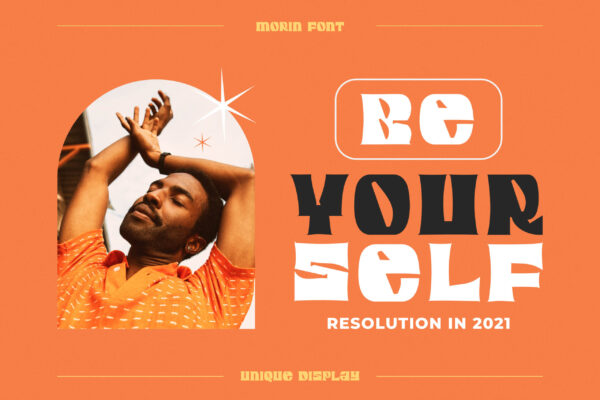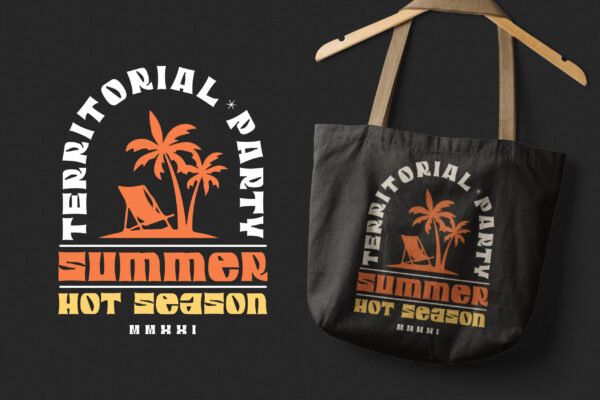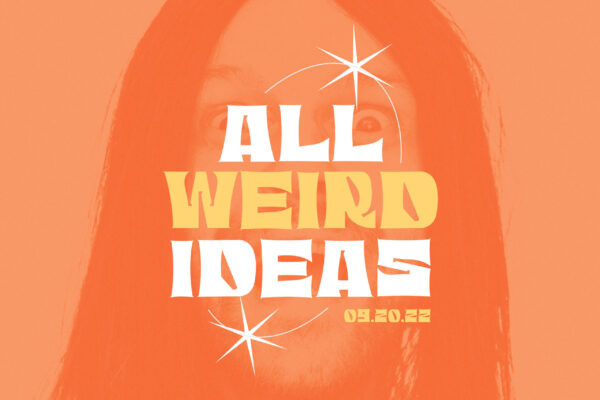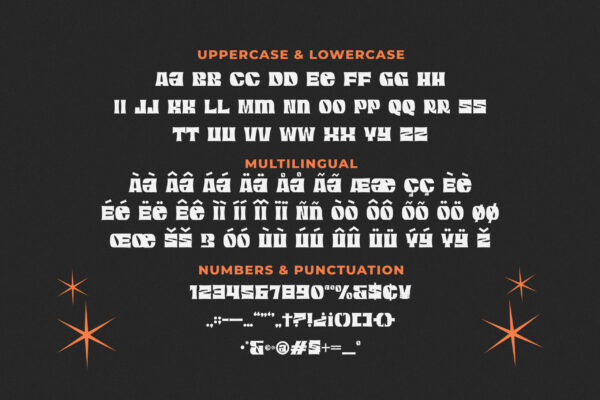
Morin is a bold and charismatic display font with a playful twist. Its sharp, exaggerated serifs and curvy letterforms evoke a vintage flair, while still feeling modern and full of attitude. The font’s quirky charm makes it ideal for headlines, branding, posters, and retro-inspired designs that demand attention.
With its full set of uppercase, lowercase, numbers, punctuation, and multilingual support, Morin is versatile and expressive. Whether you’re working on a summer event poster, creative campaign, or standout apparel design, Morin brings uniqueness and flair to your typography.
Morin